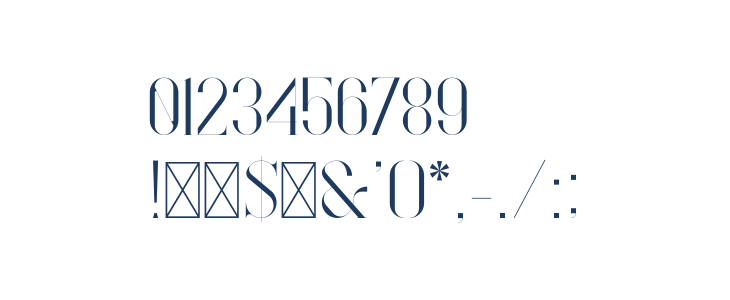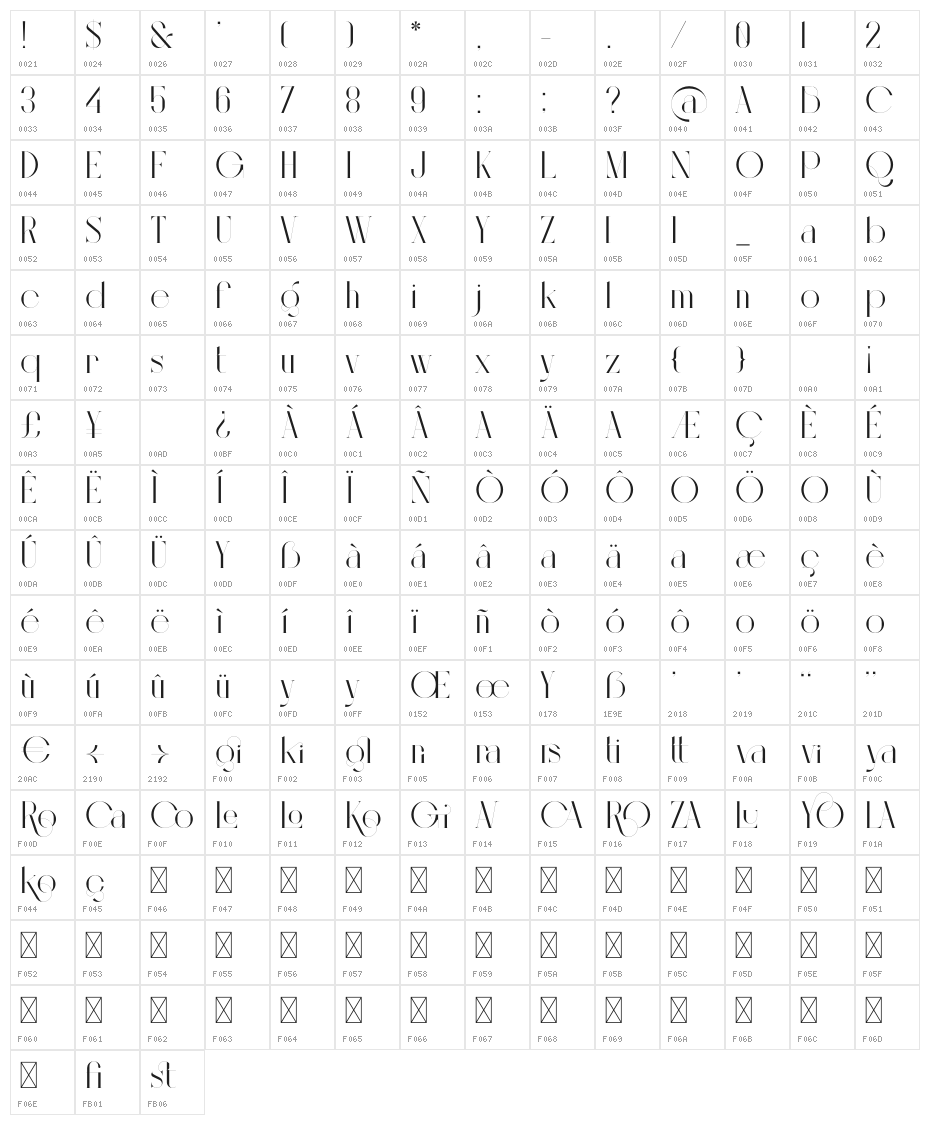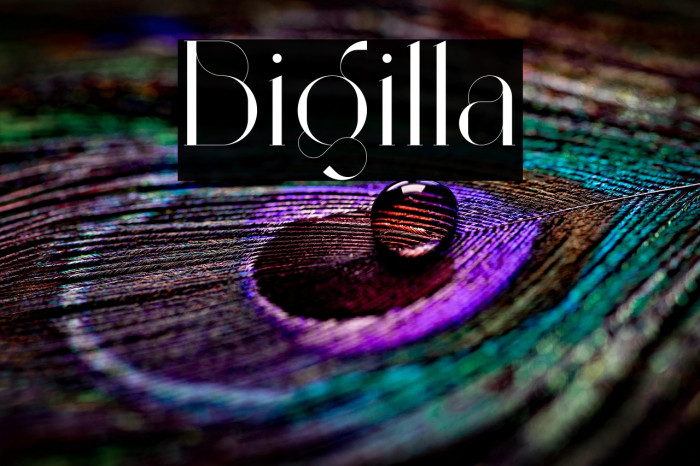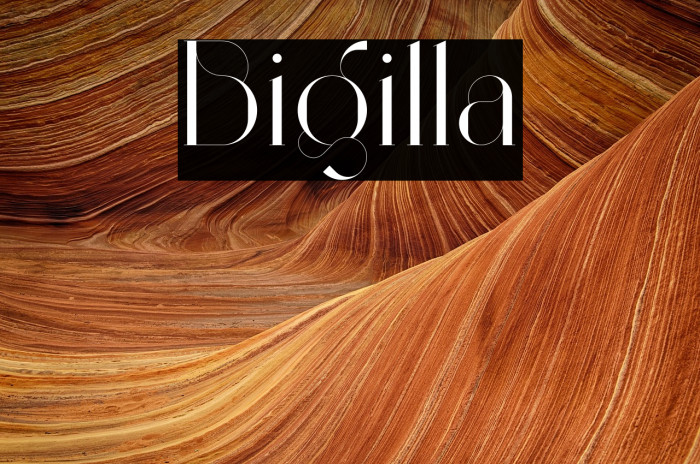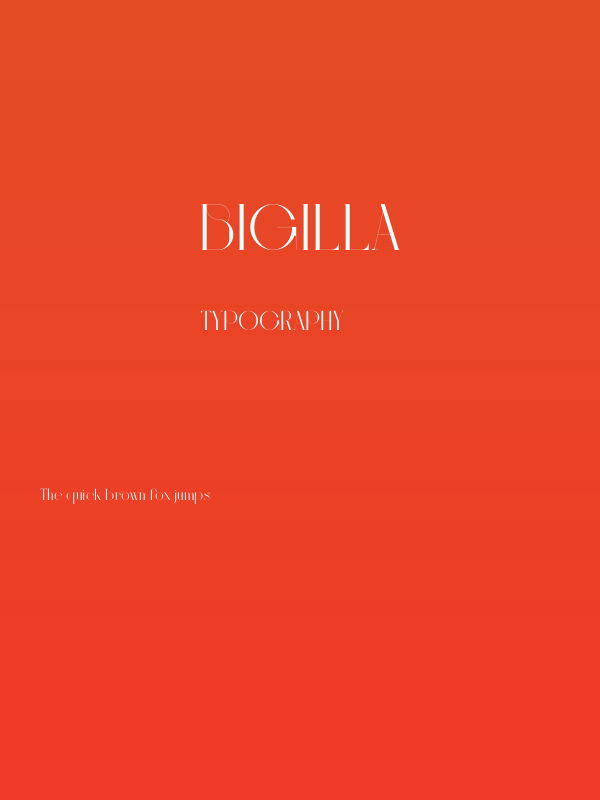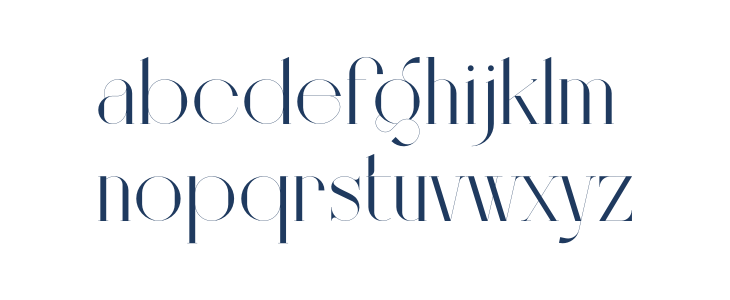
Bigilla Font
Bigilla Description
This font exhibits a striking blend of modern elegance and geometric precision. The uppercase letters are characterized by their tall, slender forms with high contrast between thick and thin strokes, creating a sophisticated and stylish appearance. The lowercase letters maintain this contrast, offering a harmonious balance with their uppercase counterparts. The numerals are equally refined, featuring a consistent style that complements the alphabet. Special characters are thoughtfully designed, maintaining the font's overall aesthetic. This font is ideal for projects that require a touch of luxury and modernity, such as high-end branding, editorial design, and fashion-related materials.
| Use Case | Headlines, Logos, Editorial design |
| Proposed Projects | Ideal for luxury branding, fashion editorials, and sophisticated advertising campaigns. |